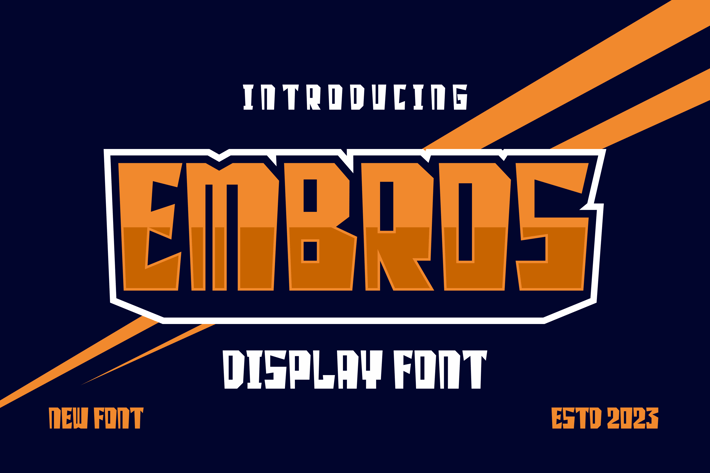
Embros - Display Font
Perfectly suited on print/screen. itβs perfect for Branding, name card, poster, logo, magazine,
cover, banner, t-shirt and headers, or even large-scale artwork.